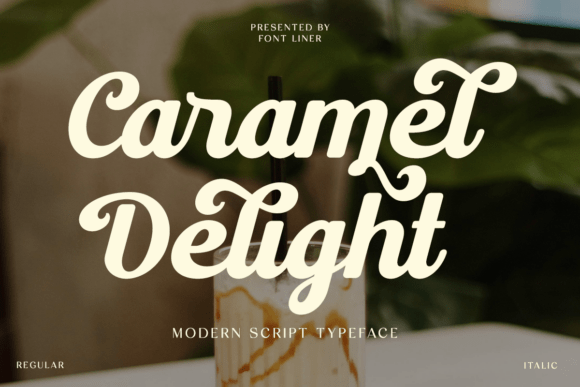
The Sweetest Font You’ll Ever Meet
As a designer, have you ever found yourself staring at a blank canvas, struggling to bring your creative vision to life? The blank page can be daunting, but what if the right font could be the spark that sets your imagination ablaze? For me, that spark was the Caramel Delight Font – a smooth and elegant modern script typeface with a retro twist that has been the game-changer in my design projects.
With its bold curves, flowing swashes, and playful character, the Caramel Delight Font adds a warm, handcrafted feel to any creative project. Whether you’re designing branding, packaging, cafe signage, or lifestyle materials, this font is the perfect addition to elevate your work. Its versatility and charm make it an invaluable asset for designers seeking to create visually appealing and engaging content.
- Unique Characteristics: The Caramel Delight Font features a unique, hand-drawn design with a warm, golden color and a soft, cursive texture.
- Font Weight and Style: The font is available in a single weight and style, with a medium weight and a rounded, cursive shape.
Caramel Delight Font Review
I recently had the chance to work with the Caramel Delight font, and I must say, it’s a delightful addition to any design project. ✨ Here are some of its standout features:
- Unique, whimsical feel: The Caramel Delight font has a playful, handwritten quality that’s perfect for adding a touch of personality to your designs.
- Wide character set: The font includes a wide range of characters, including punctuation and symbols, making it easy to use in a variety of contexts.
- Good legibility: Despite its cursive feel, the Caramel Delight font is surprisingly easy to read, even at smaller font sizes.
- Limited font sizes: While the font is legible at smaller sizes, it may not be the best choice for large, bold headings.
- Lack of bold and italic styles: The font only comes in regular and script styles, which may limit its versatility in certain design situations.
Overall, I’m impressed with the Caramel Delight font. It’s a great choice for designers looking to add a touch of whimsy to their projects. With a little creativity, it’s easy to work around its limitations and create beautiful, unique designs.
The Caramel Delight Font is ideal for:
- Gift card and coupon design
To get the most out of the Caramel Delight Font, use it in combination with warm and earthy colors, and pair it with bold and playful typography.
Alternatives to Caramel Delight Font
Great Vibes Font is a beautiful, elegant script font perfect for creating a sense of sophistication and luxury. It’s ideal for use in invitations, branding, and high-end packaging. Compared to Caramel Delight Font, Great Vibes Font has a more refined and polished look, making it suitable for a wider range of applications.
Pacifico Font is a modern script font with a relaxed, beachy feel. It’s perfect for use in creative projects, such as wedding invitations, menus, and branding. Compared to Caramel Delight Font, Pacifico Font has a more laid-back and casual vibe, making it ideal for projects that require a relaxed atmosphere.
Alex Brush Font is a elegant script font with a touch of whimsy. It’s perfect for use in creative projects, such as branding, invitations, and packaging. Compared to Caramel Delight Font, Alex Brush Font has a more delicate and refined look, making it suitable for projects that require a touch of sophistication.